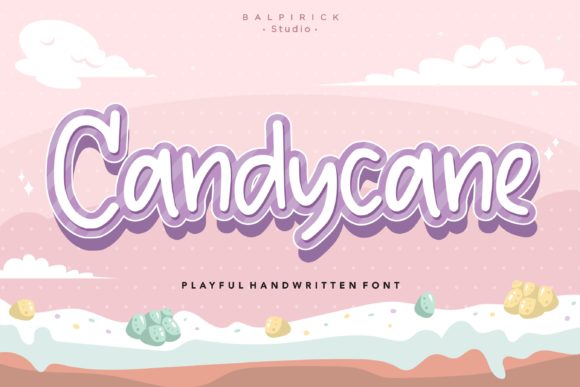
The Sweetest Font: A Deep Dive into Candycane
I’ll never forget the time I was working on a festive holiday project for a client, and I just couldn’t find the right font to capture the playful, cheerful vibe they wanted. I scrolled through font after font, but nothing seemed quite right – until I stumbled upon Candycane. This adorable handwritten font has an incredibly friendly feel that’s perfect for a wide range of creative projects. In this article, I’ll share my experience with Candycane, including what I love about it, some practical tips on how to use it, and a few similar fonts you might enjoy.
An Honest Review of Candycane
What I Love About Candycane ✨
- ✅ Cute and Casual: Candycane has a delightfully playful feel that’s perfect for Instagram posts, DIY projects, and more.
- ✅ Handwritten Charm: This font has a lovely, human touch that makes it perfect for adding a personal touch to your designs.
- ✅ Easy to Read: Despite its playful nature, Candycane is surprisingly easy to read, even at smaller font sizes.
- ✅ Versatile: Whether you’re designing for the web, print, or social media, Candycane adapts beautifully to different contexts.
While Candycane is an amazing font, it’s not without its quirks. For example:
- ⚠️ Limited Formality: As a casual, handwritten font, Candycane might not be the best choice for very formal or professional projects.
- ⚠️ Glyph Limitations: While Candycane has a range of glyphs and alternates, it’s not as extensive as some other fonts on the market.
A Practical Guide to Using Candycane
The Backstory Behind Candycane
Candycane was designed by a talented typographer who wanted to create a font that captured the magic of the holiday season. Inspired by vintage candy canes and festive decorations, Candycane is the perfect blend of playful and charming. Whether you’re designing for Christmas, Halloween, or just want a fun font for everyday projects, Candycane is sure to delight.